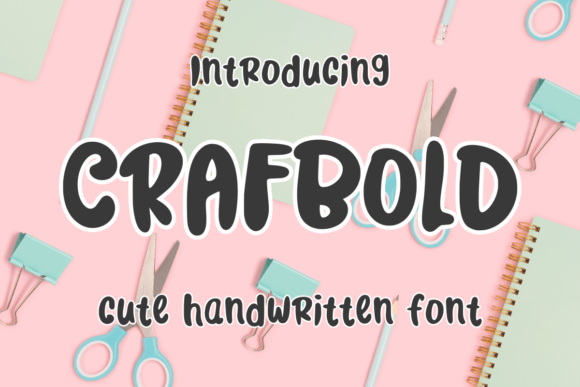
Crafbold Font
Introducing Crafbold, the ravishing font that bursts with a cool, adorable, and bubbly personality to make your designs dance with delight. This display font is like a joyous wave, ready to splash creativity onto your invitations, pool party posters, and any project yearning for a lively touch.
With Crafbold by your side, the limits are swept away! Let your imagination soar, knowing that this playful font will keep up with your boundless enthusiasm. Its expressive curves are handpicked to add a dash of cheer to every design.